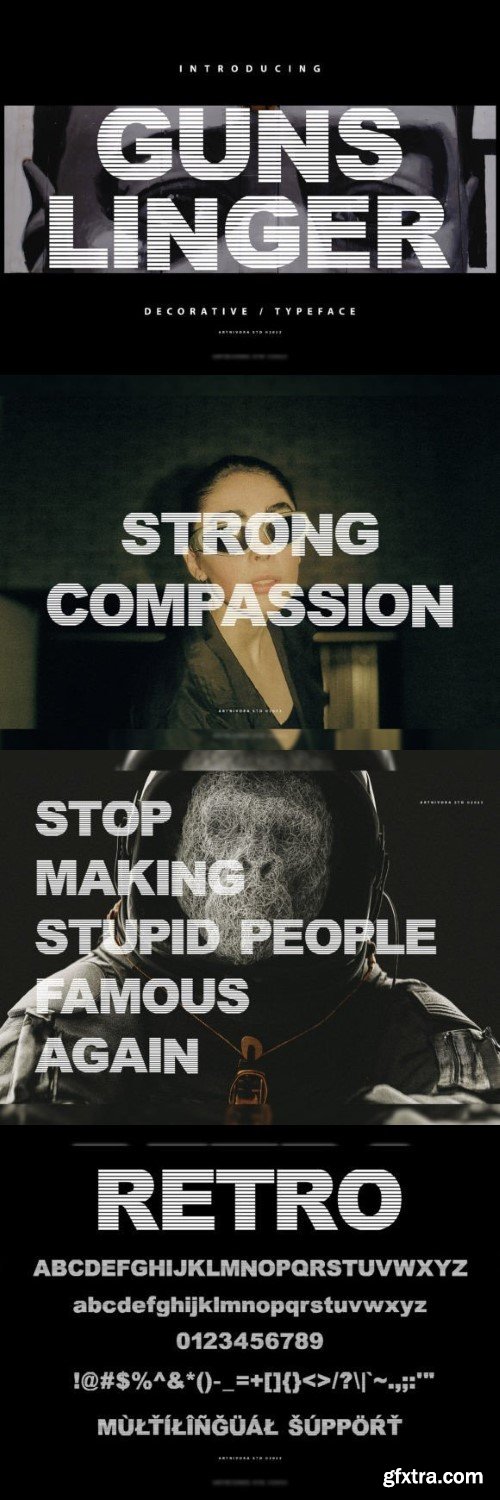
枪手字体
Gunslinger is a simple and decorative font. So perfect for you who needs a typeface for logo designs, magazine, social media, brochure, and many more.